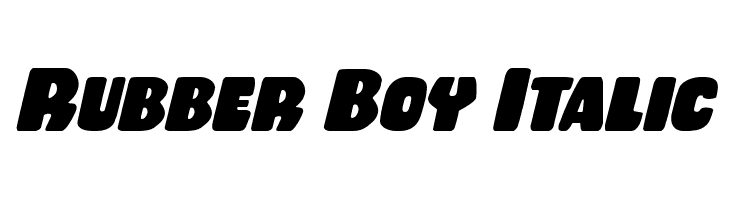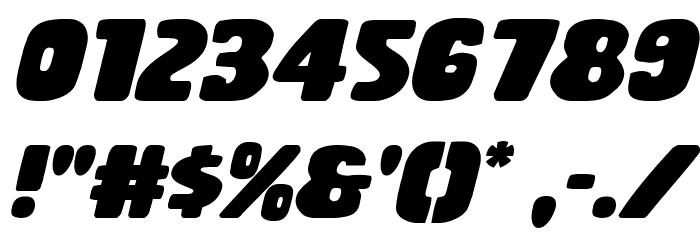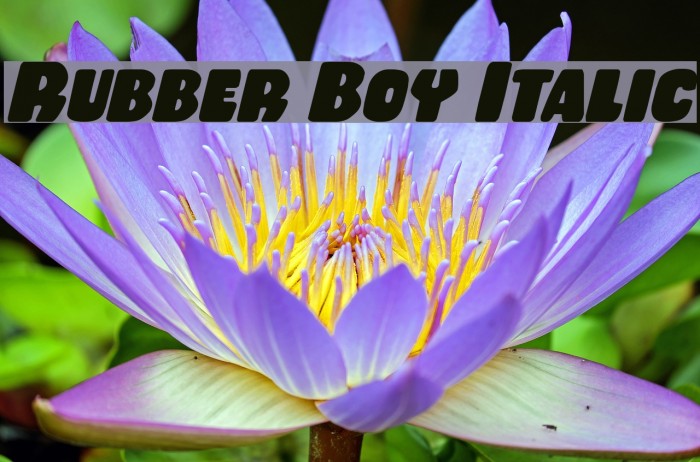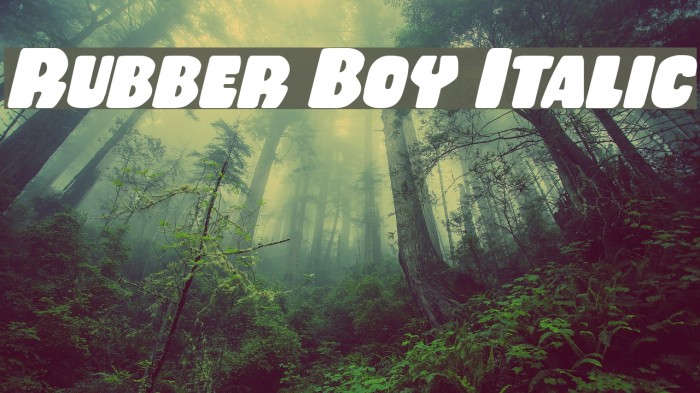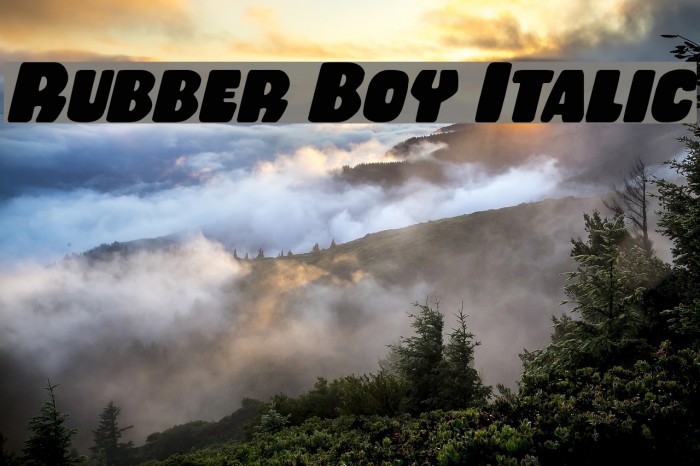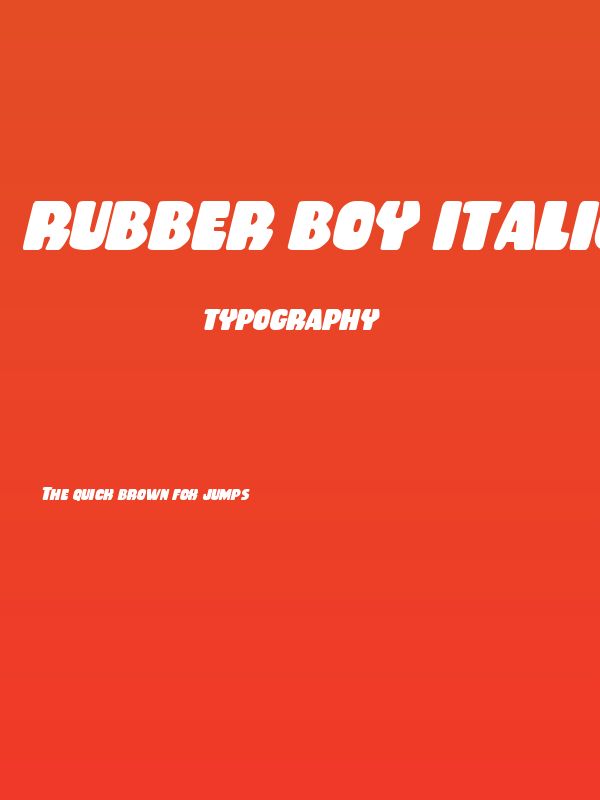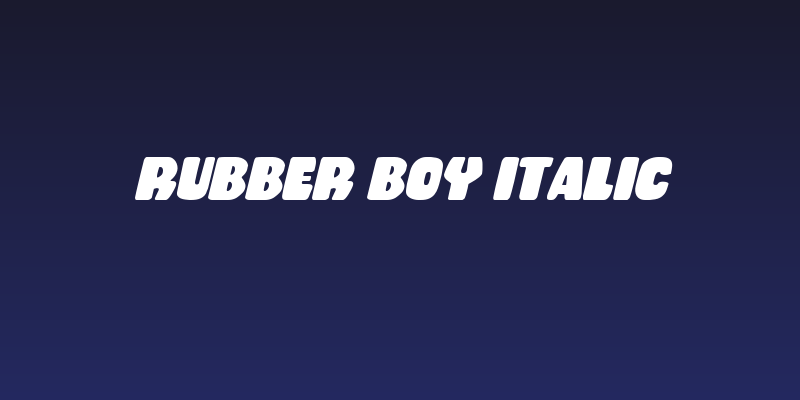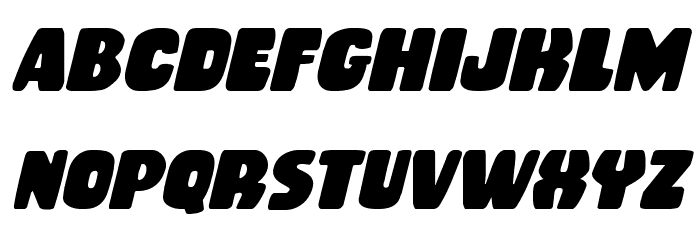
Rubber Boy Italic Font
Rubber Boy Italic Description
This font features a bold and playful design with rounded edges and a slightly italicized slant, giving it a dynamic and energetic appearance. The characters are thick and robust, making them highly visible and impactful. The style is reminiscent of retro or comic book aesthetics, with a modern twist that adds a sense of fun and creativity. The uppercase and lowercase letters maintain a consistent weight, ensuring readability while adding a touch of whimsy. The numbers and special characters follow the same bold and rounded style, making them cohesive with the rest of the font. This font is ideal for projects that require a lively and engaging typeface.
| Overall Style | Playful, Retro, Modern |
| Proposed Projects | Ideal for comic books, children's books, playful branding, and eye-catching headlines. |